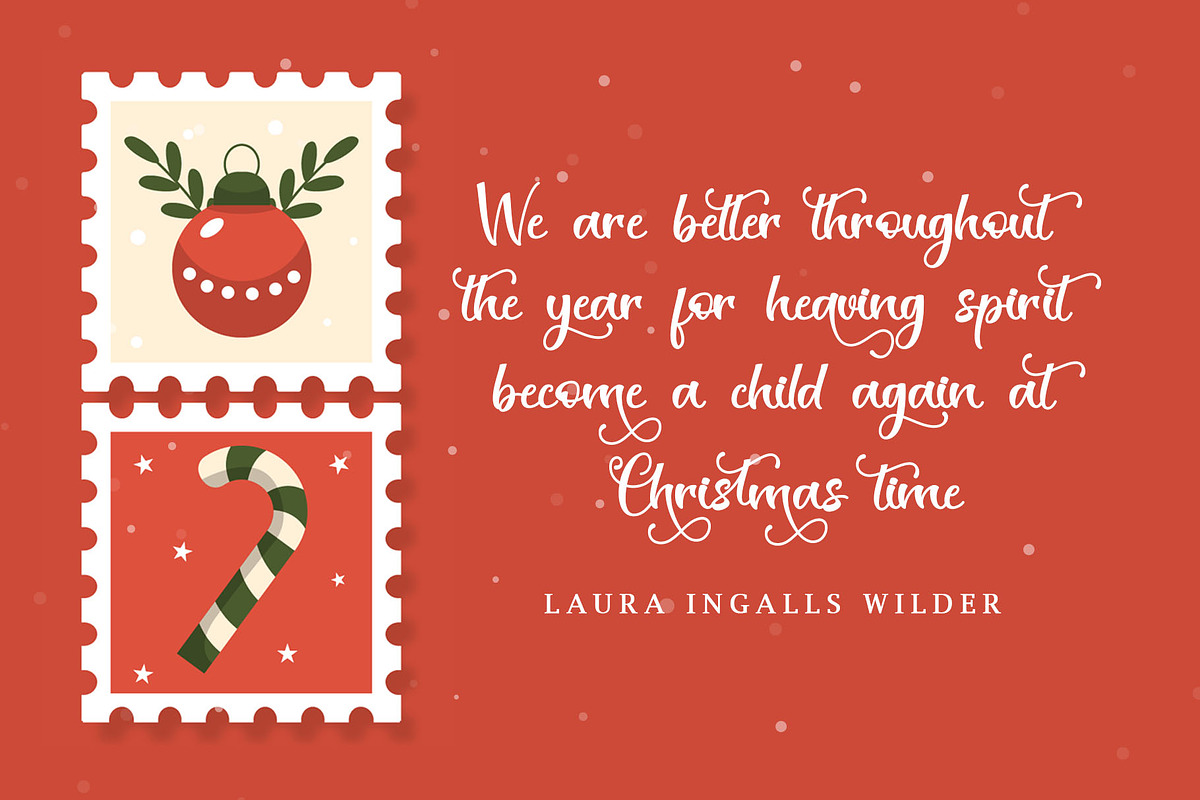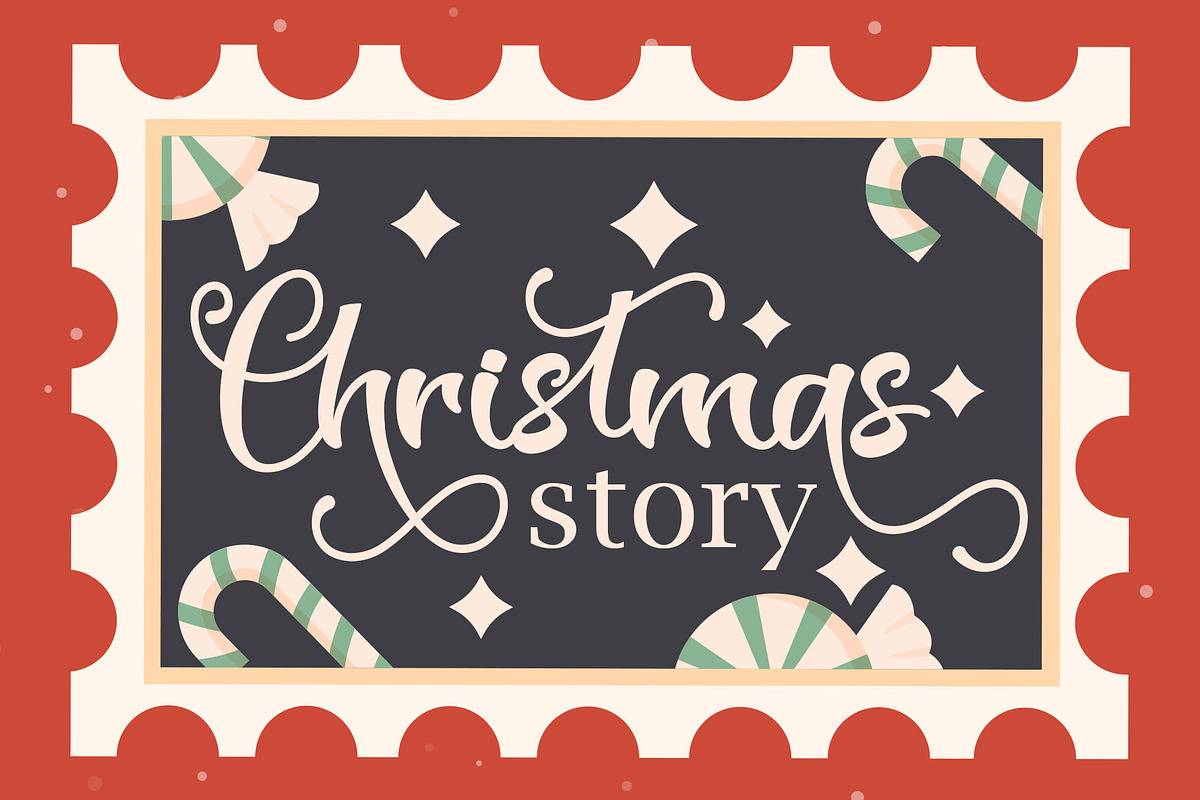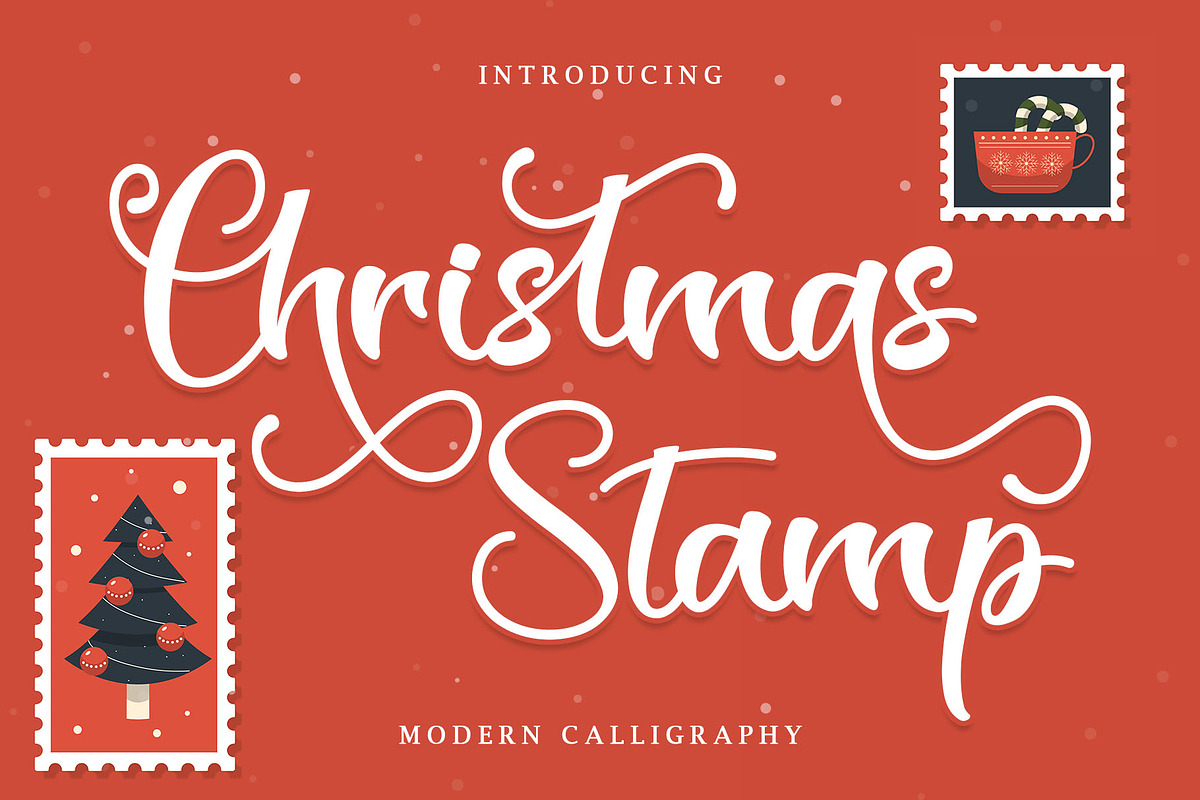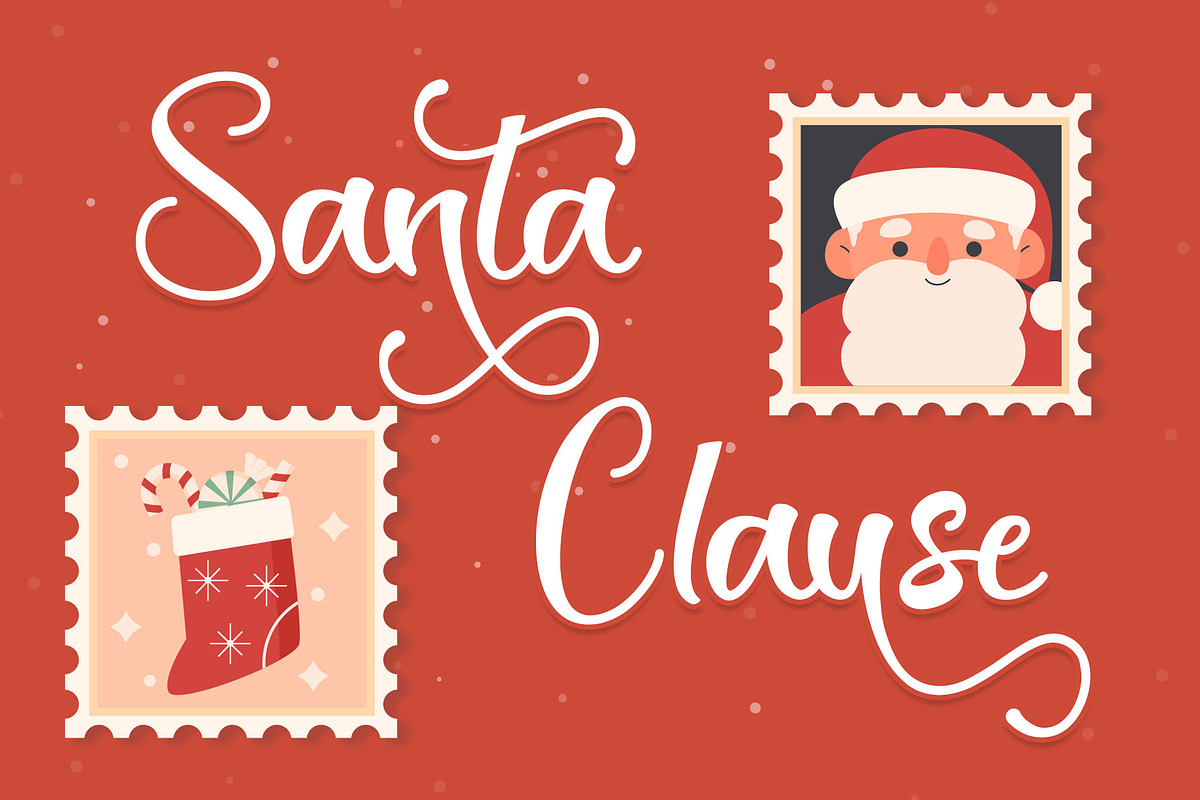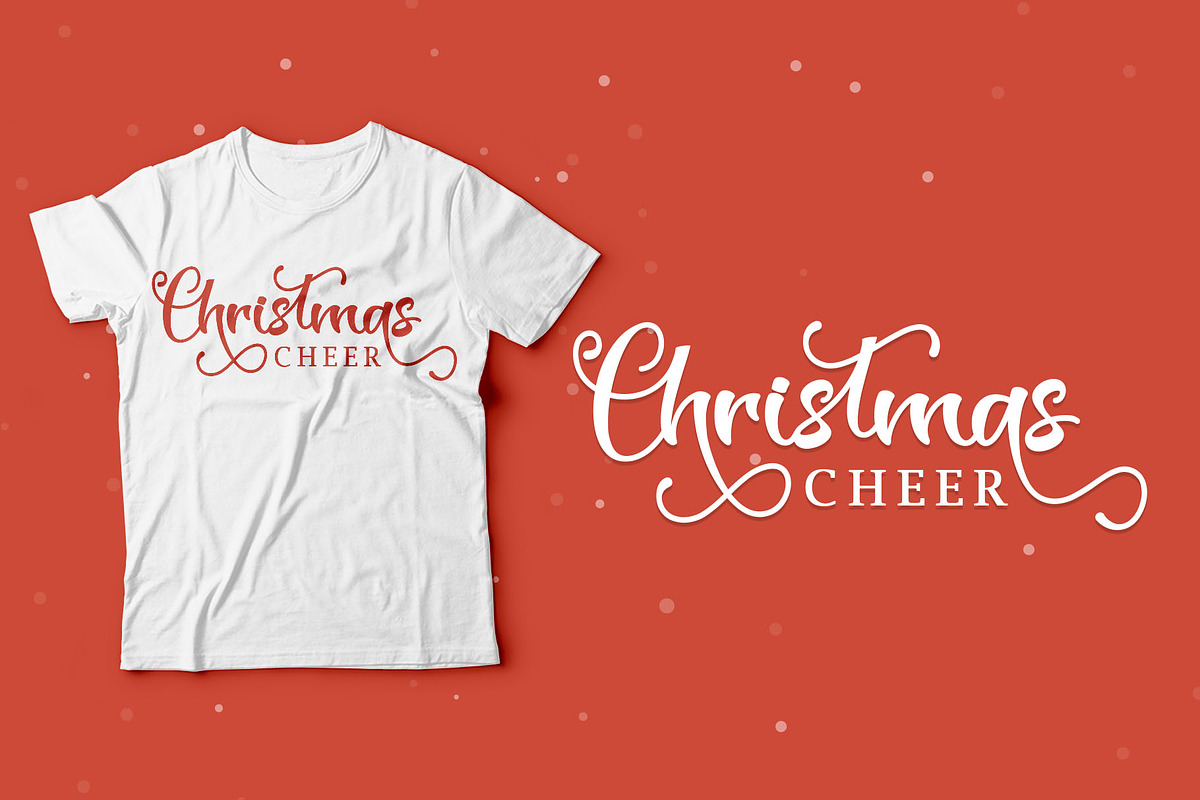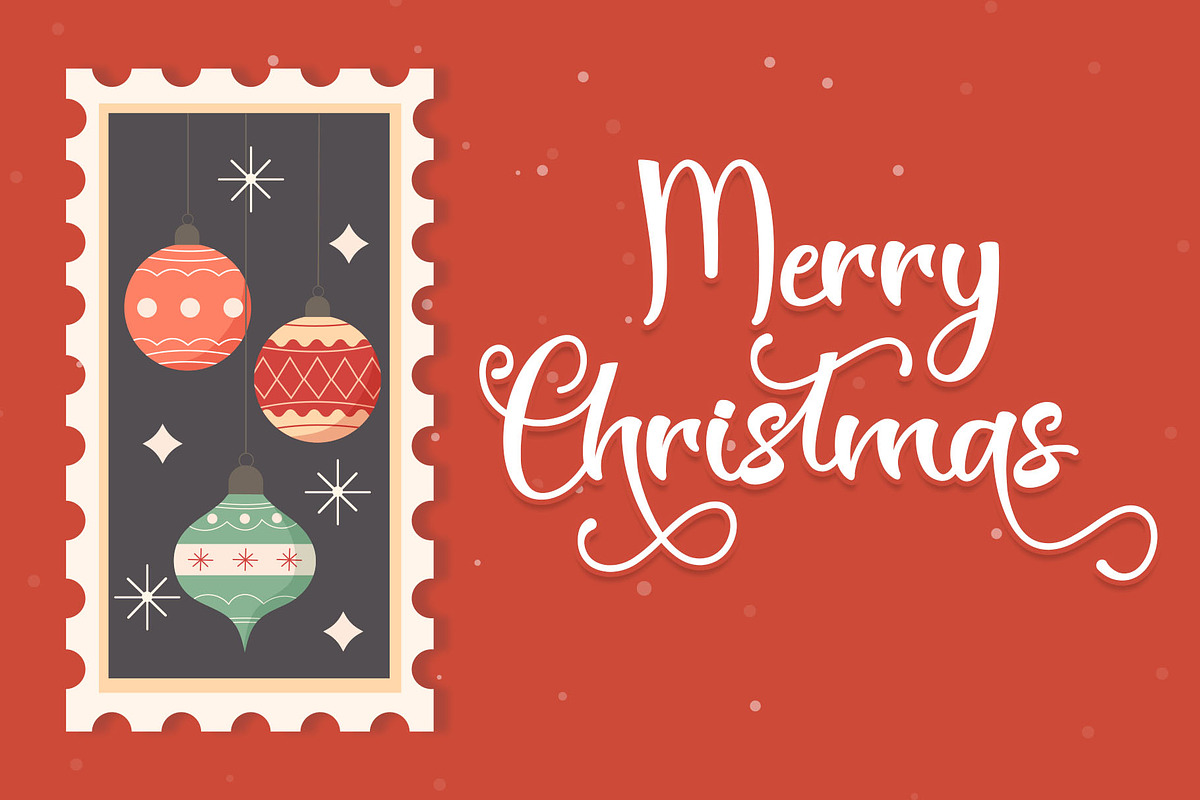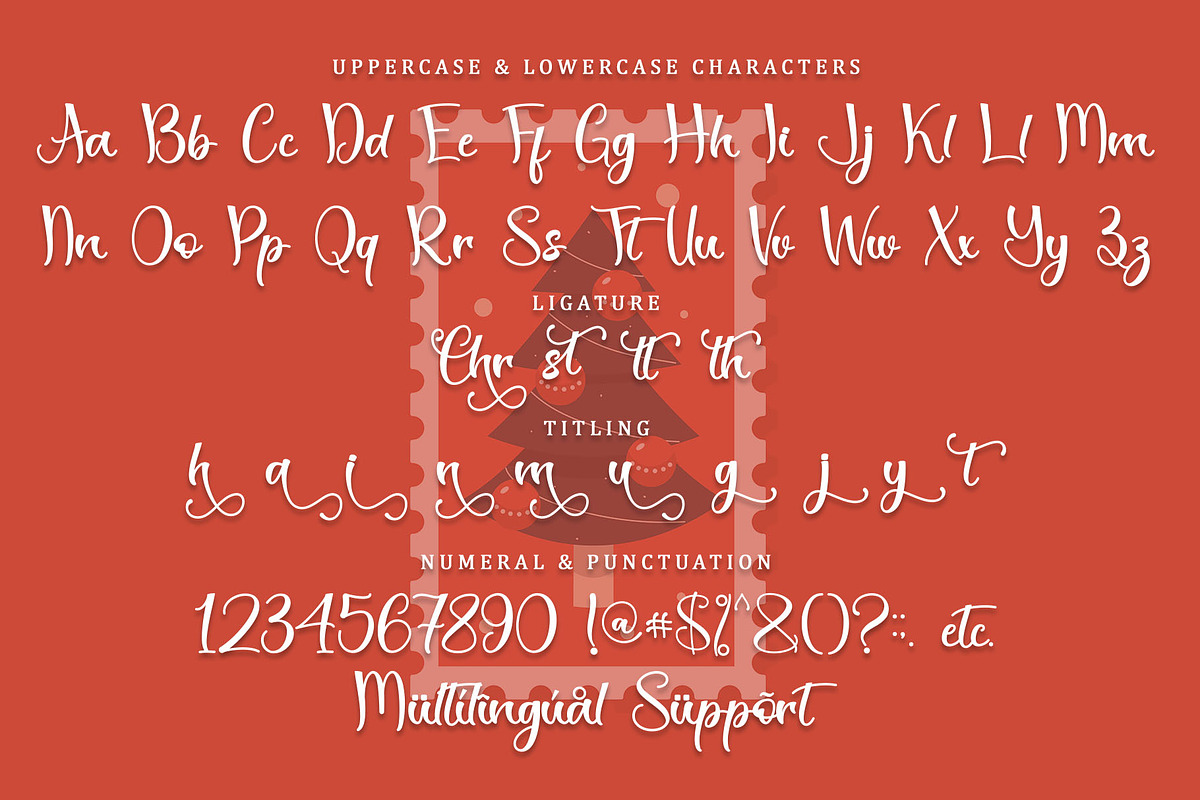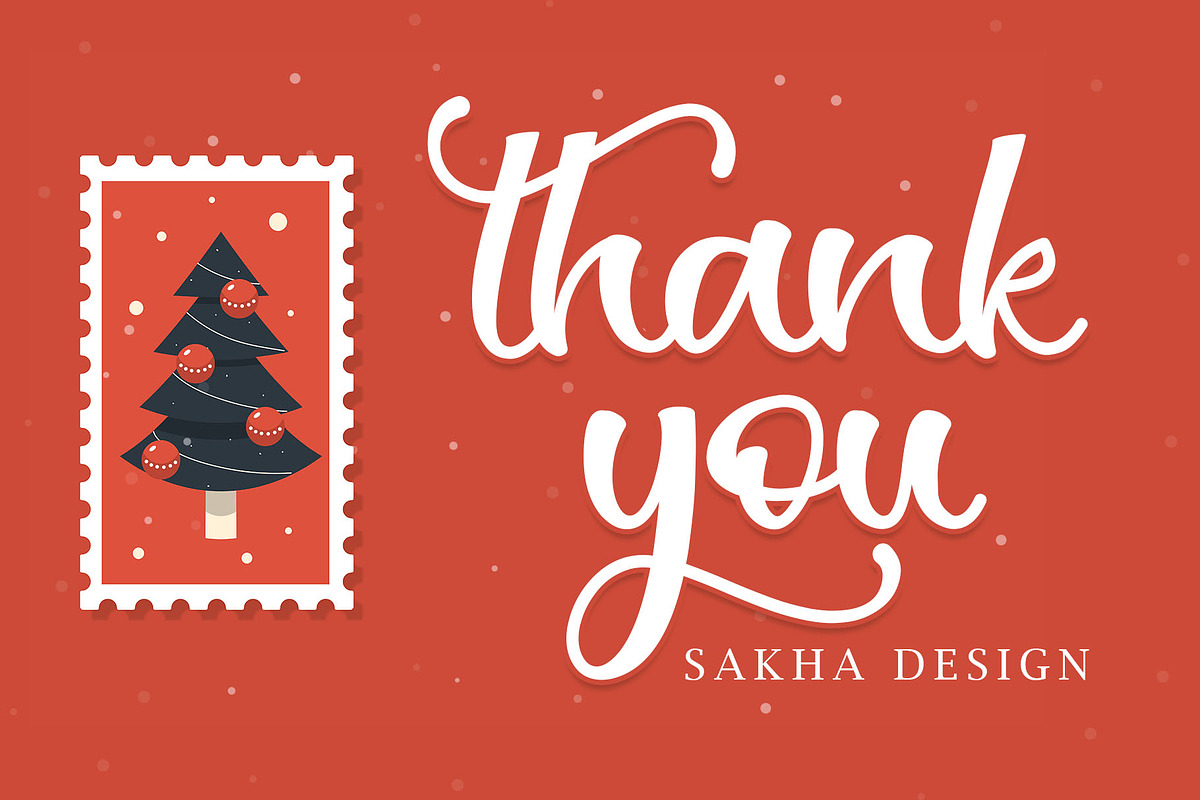
Christmas Stamp-Modern Calligraphy
Christmas Stamp is a lovely script font featuring charming, playful characters that seem to dance along the baseline. Add this font to your most creative ideas, and notice how it makes them stand out! It is PUA encoded which means you can access all glyphs and swashes with ease!